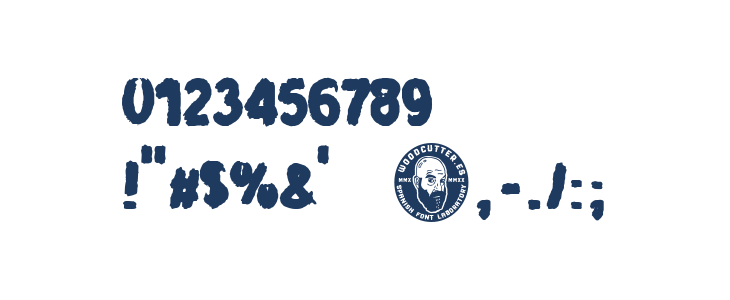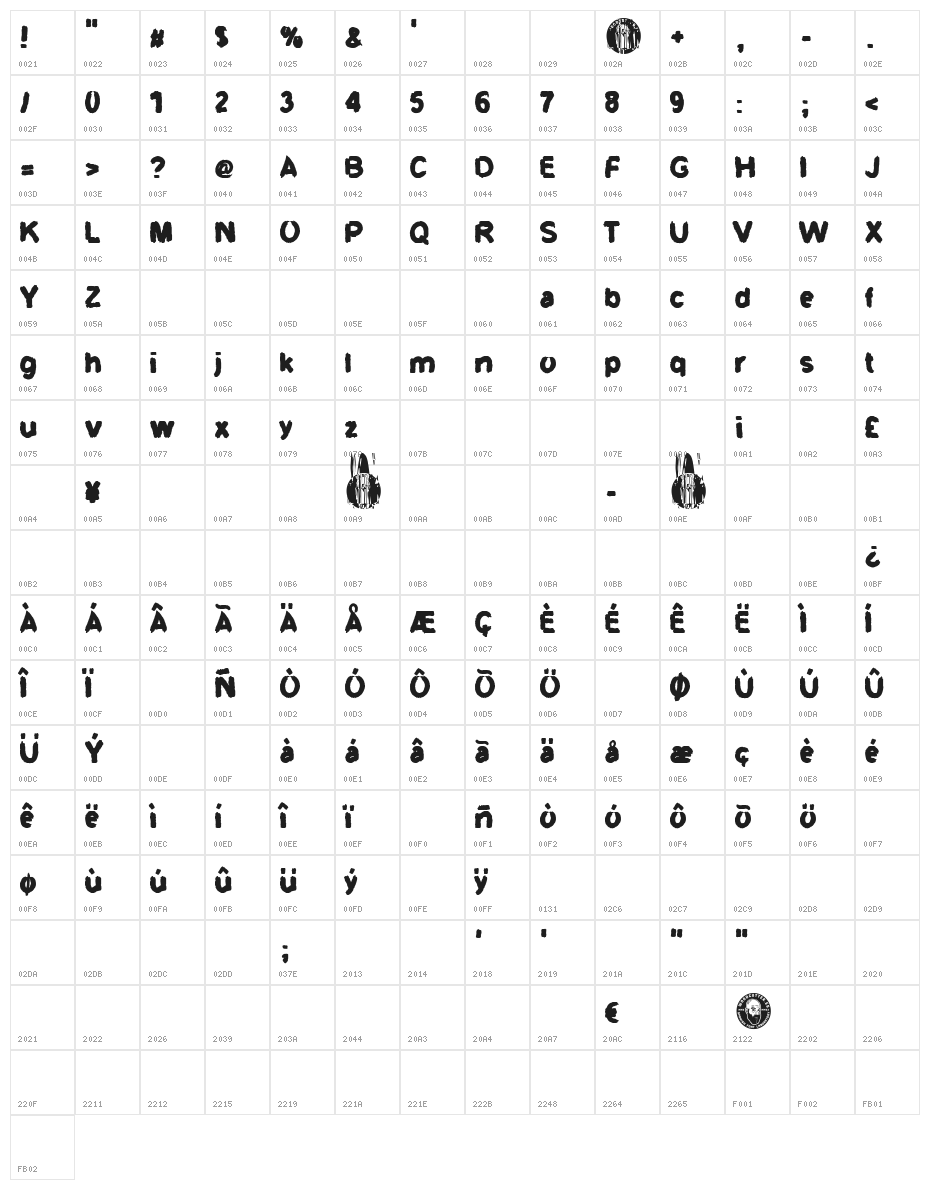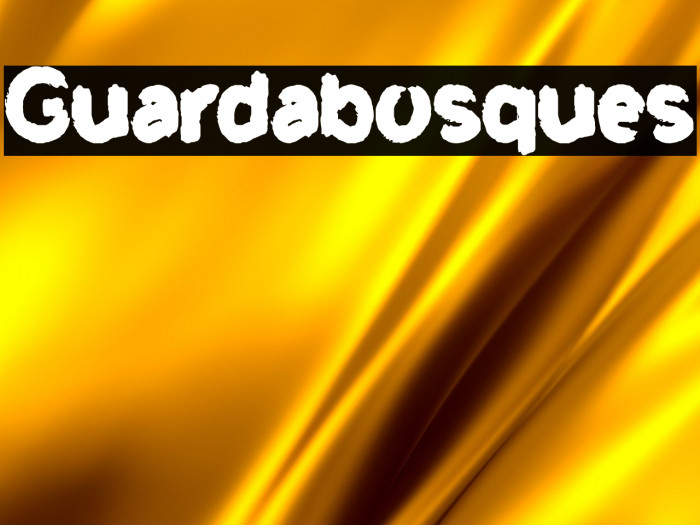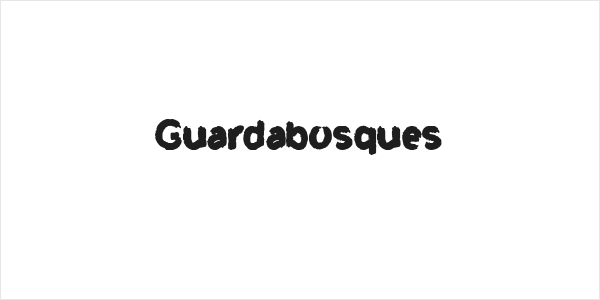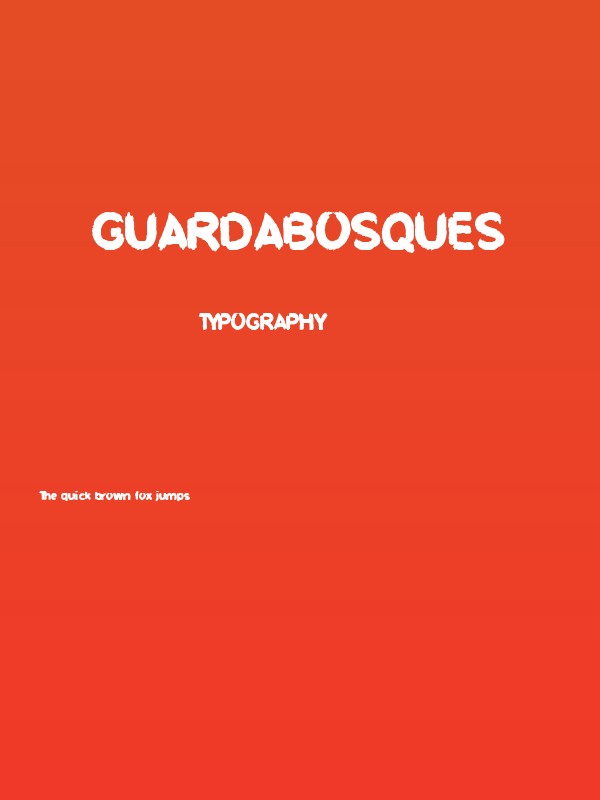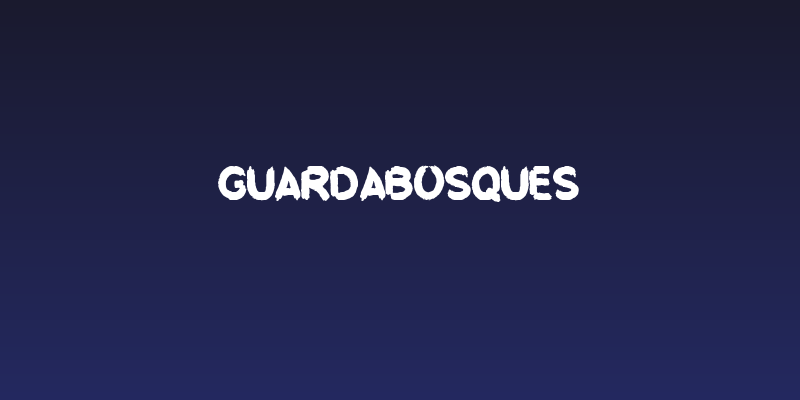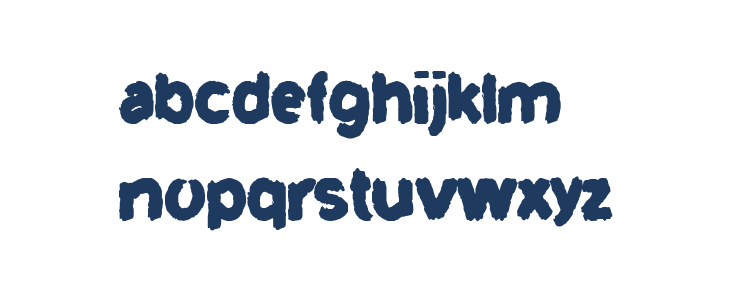
Guardabosques Font
| Stile generale | Rustic, Organic |
| Progetti proposti | Ideal for outdoor branding, artisanal packaging, adventure-themed posters, and rustic signage. |